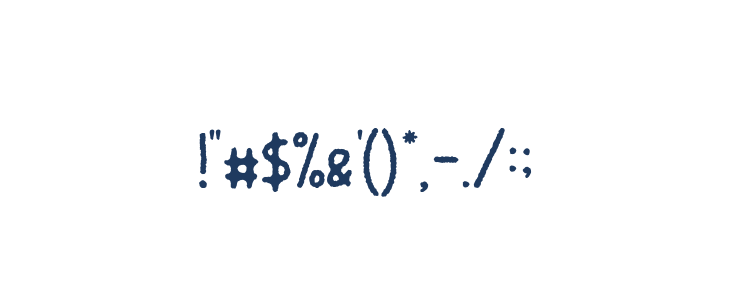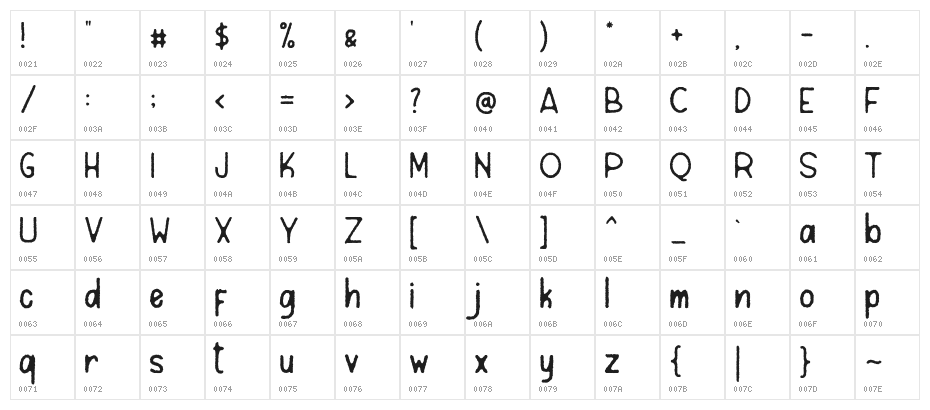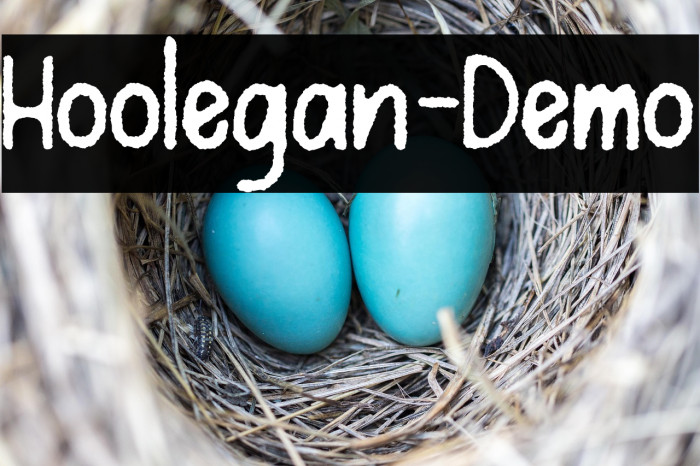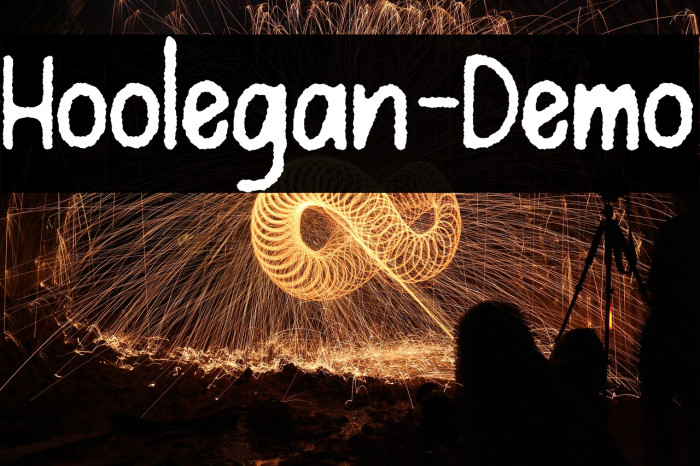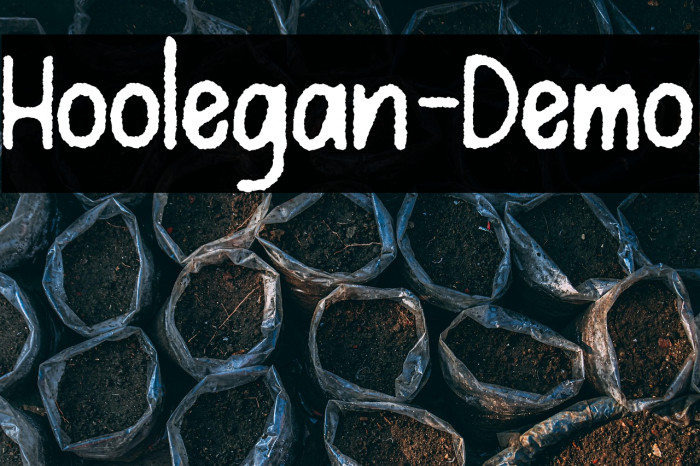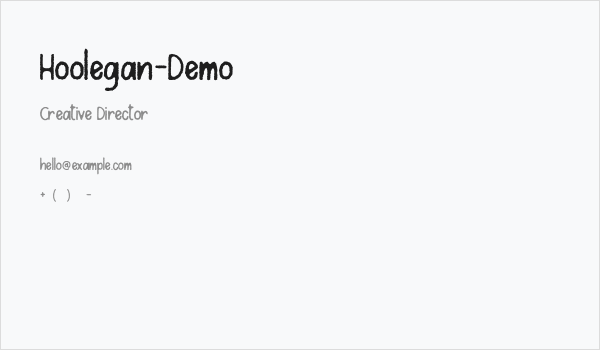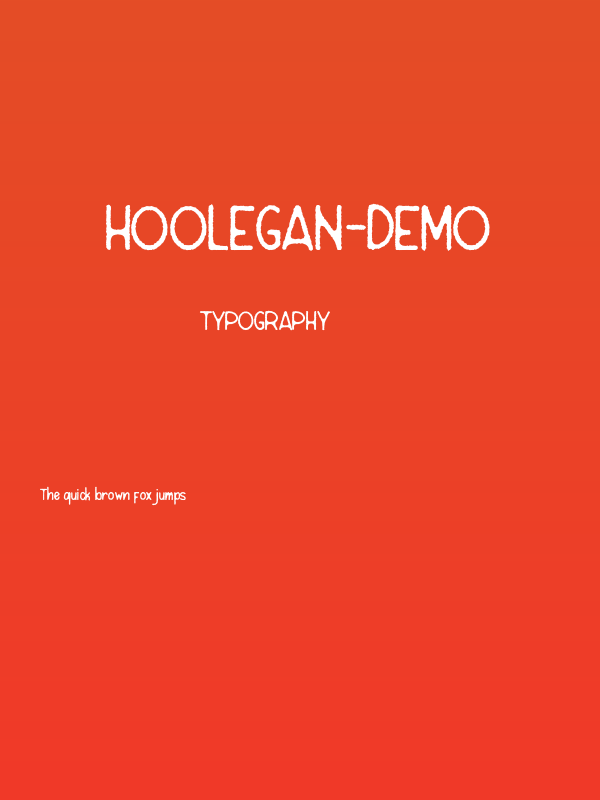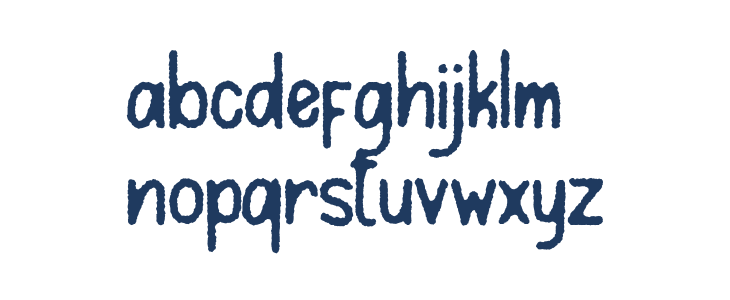
Hoolegan-Demo Font
Hoolegan-Demo Description
This font features a playful and slightly irregular style, reminiscent of hand-drawn lettering. The characters have a casual, organic feel with uneven strokes and a slightly rough texture, giving it a unique and approachable appearance. The uppercase and lowercase letters maintain a consistent style, with rounded edges and a whimsical touch. The numerals and special characters follow the same playful design, making the font suitable for creative and informal projects. Its distinctiveness lies in its ability to convey a sense of fun and creativity while remaining legible and versatile.
| Proposed Projects | Ideal for children's books, creative posters, casual branding, and playful invitations. |